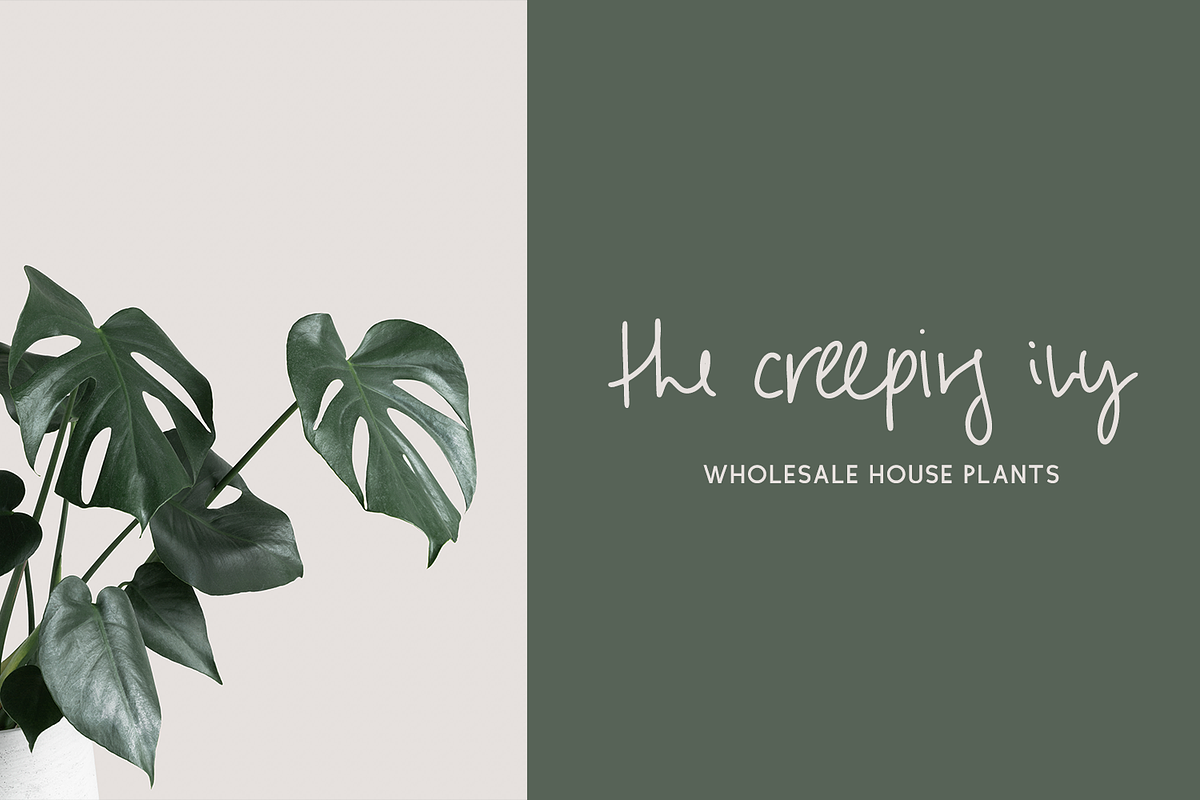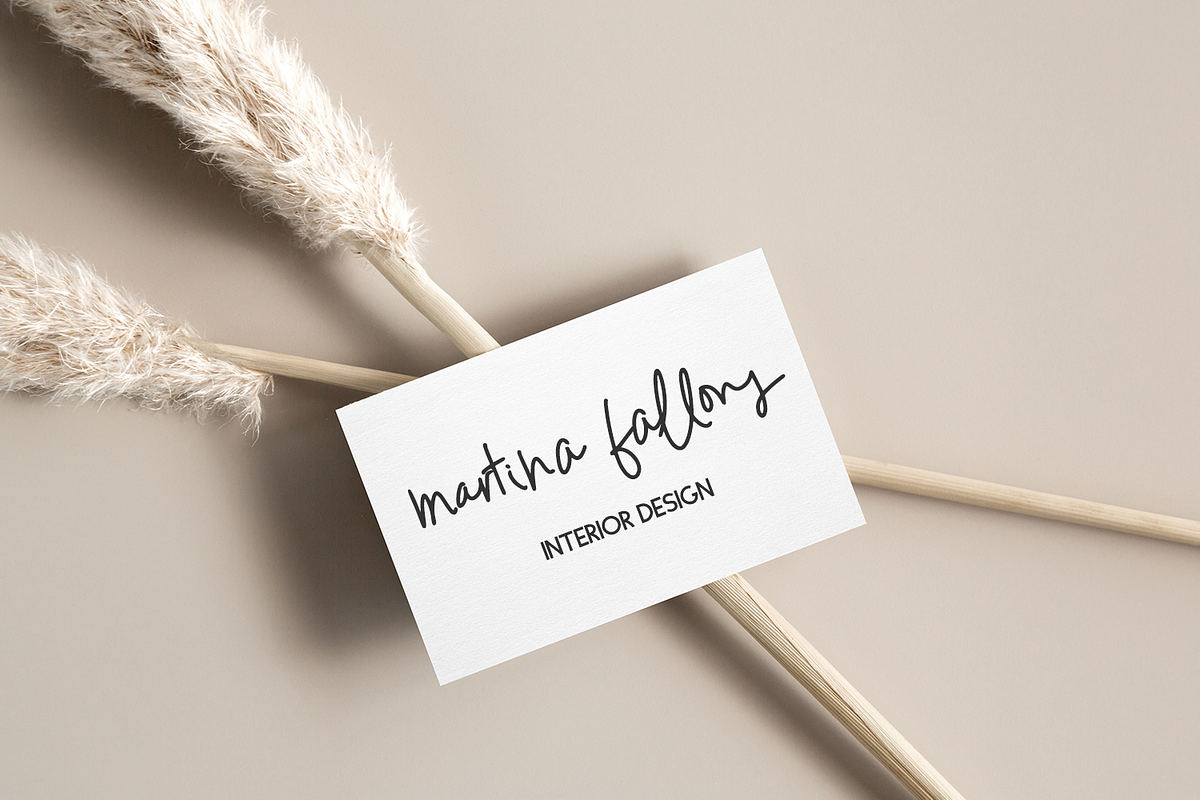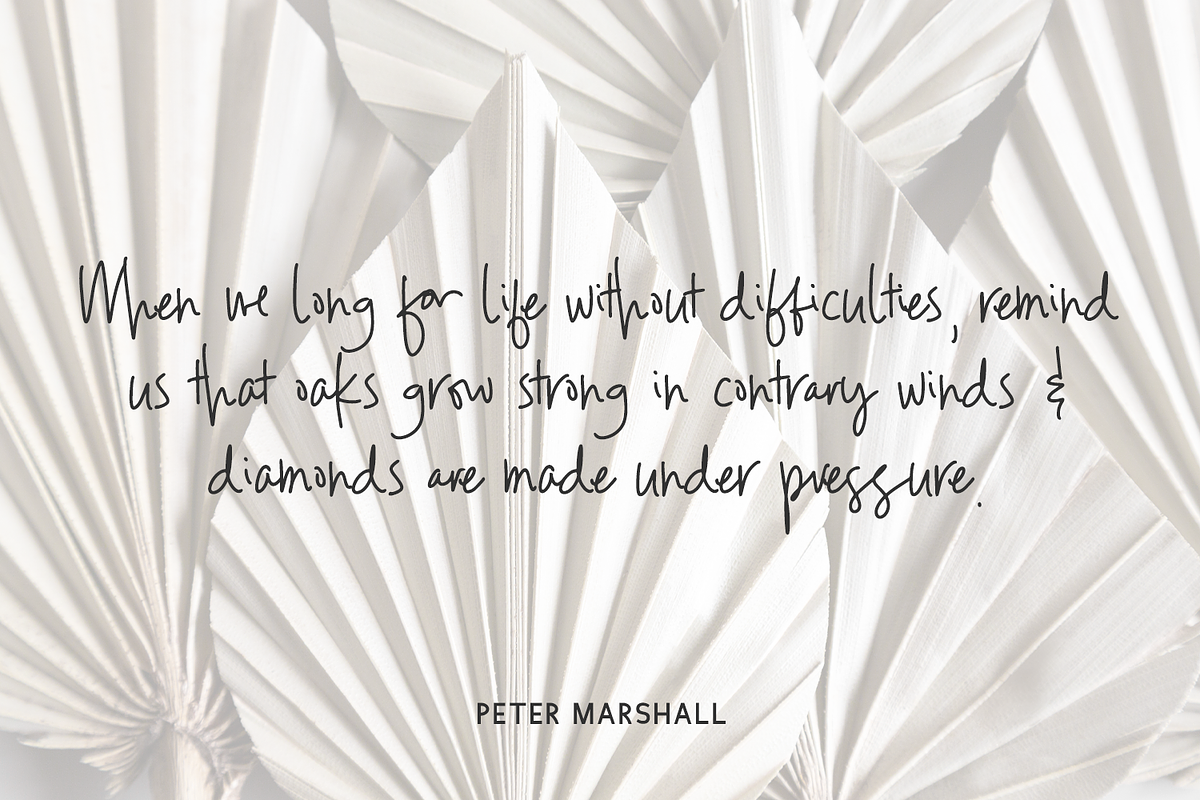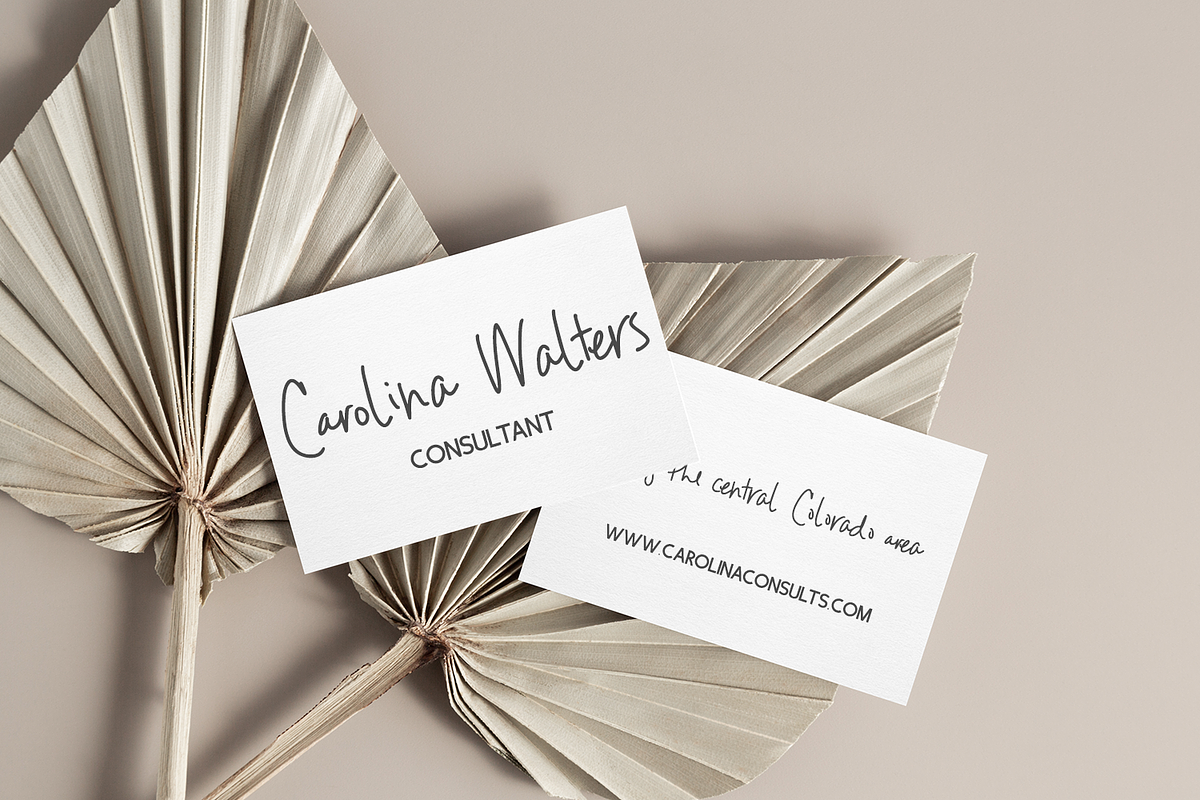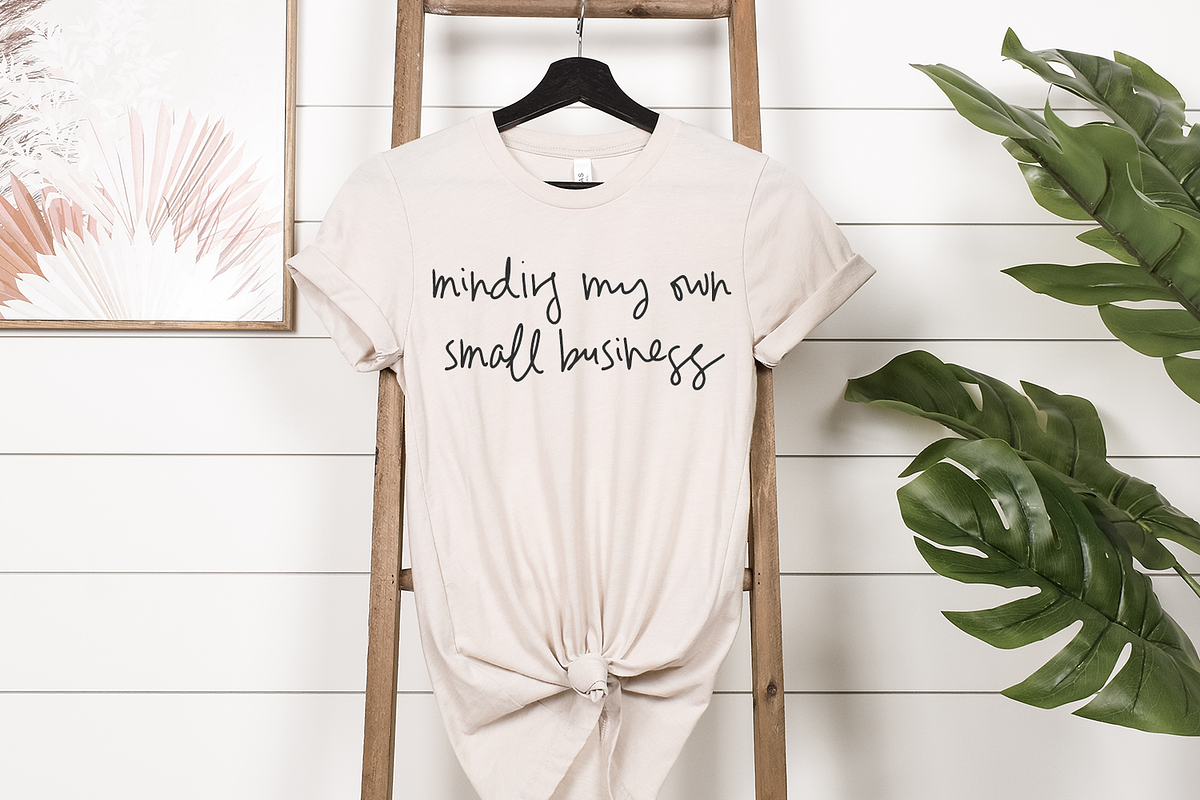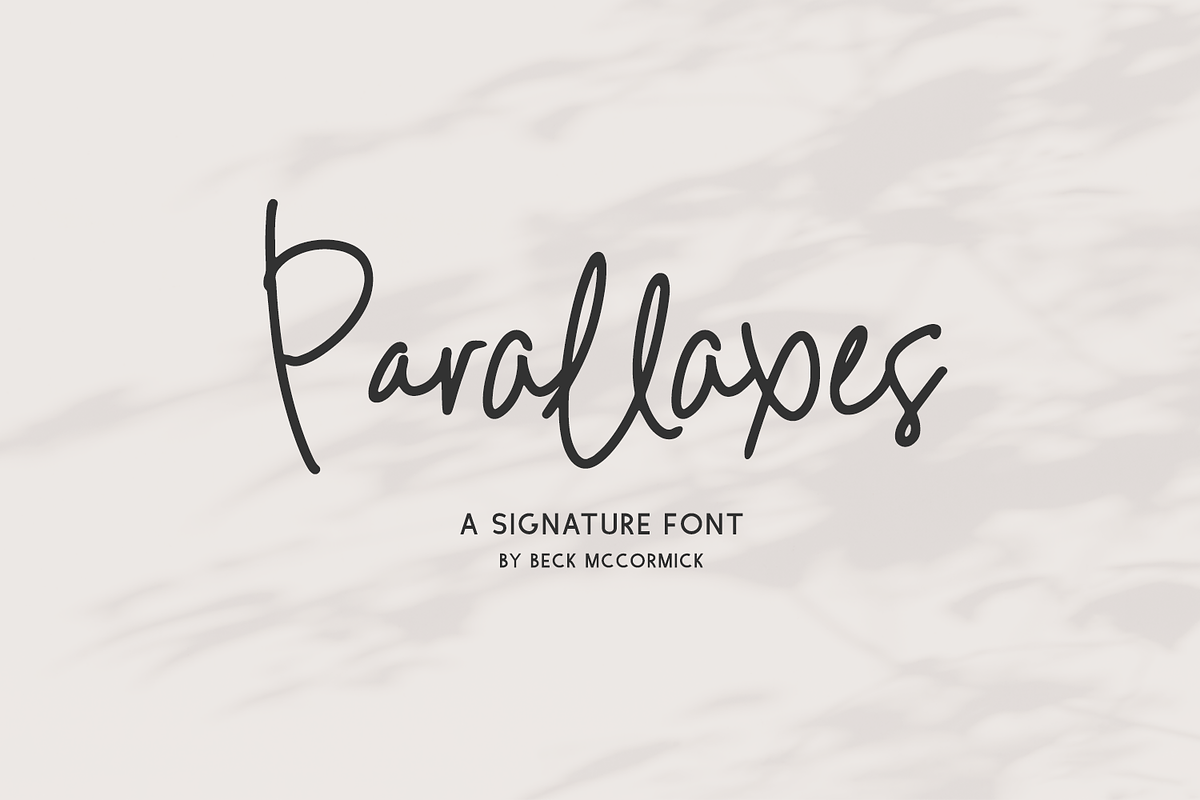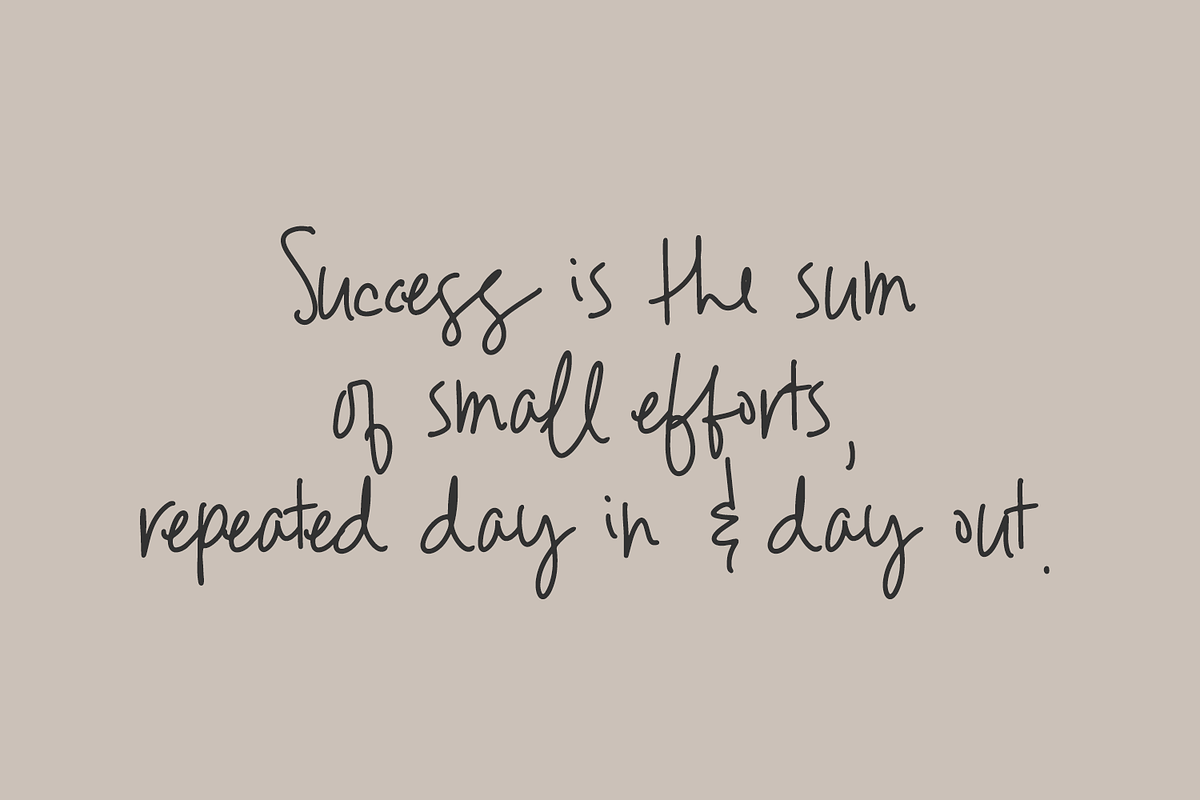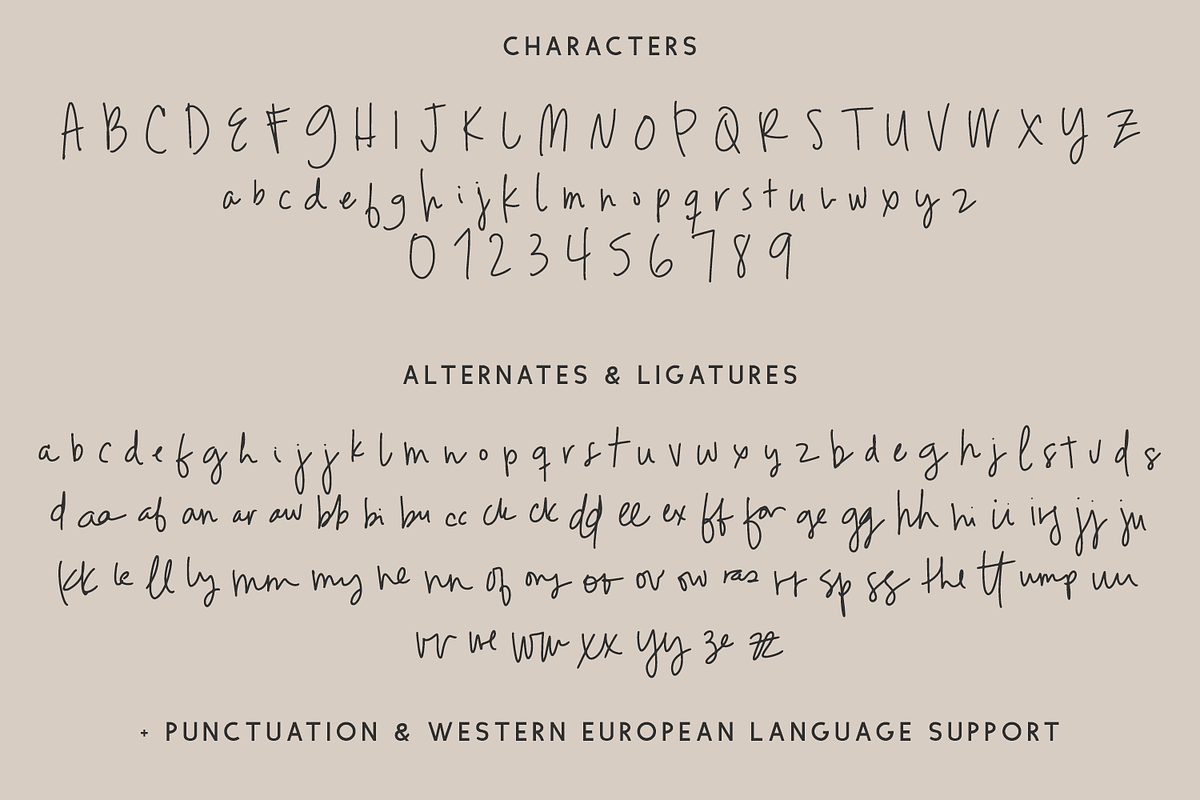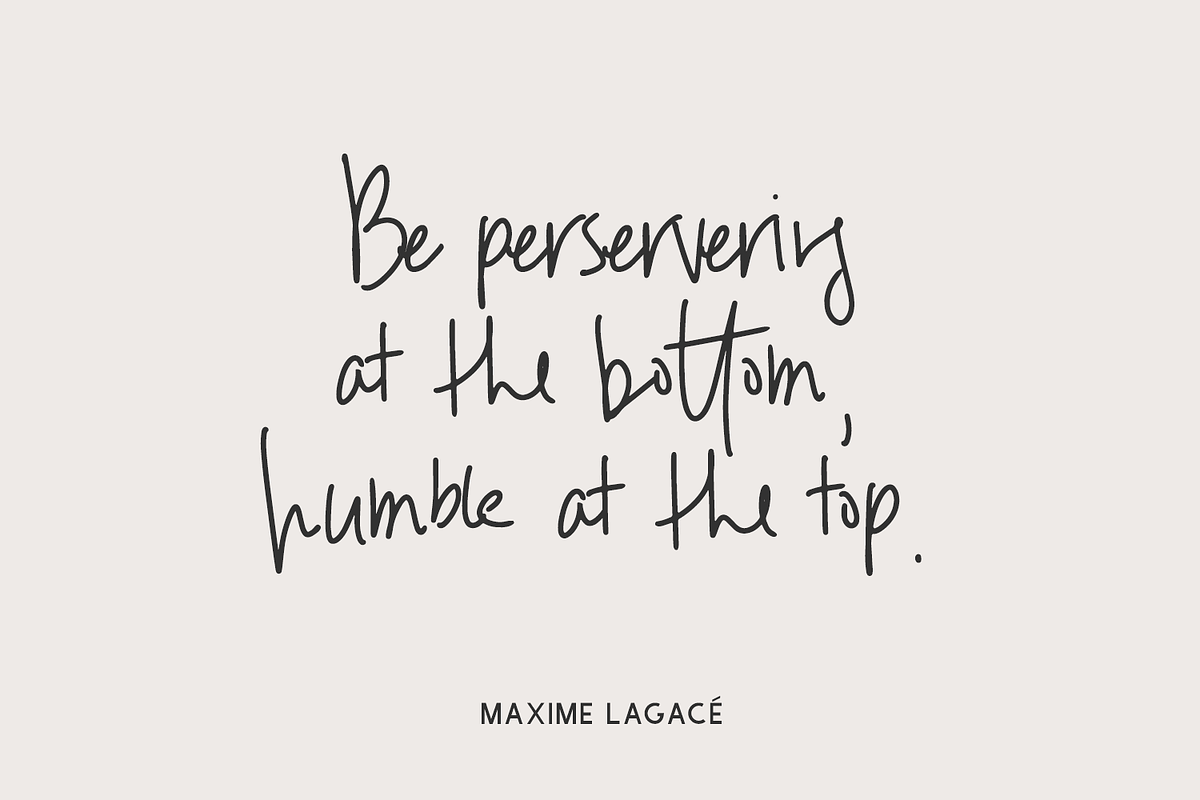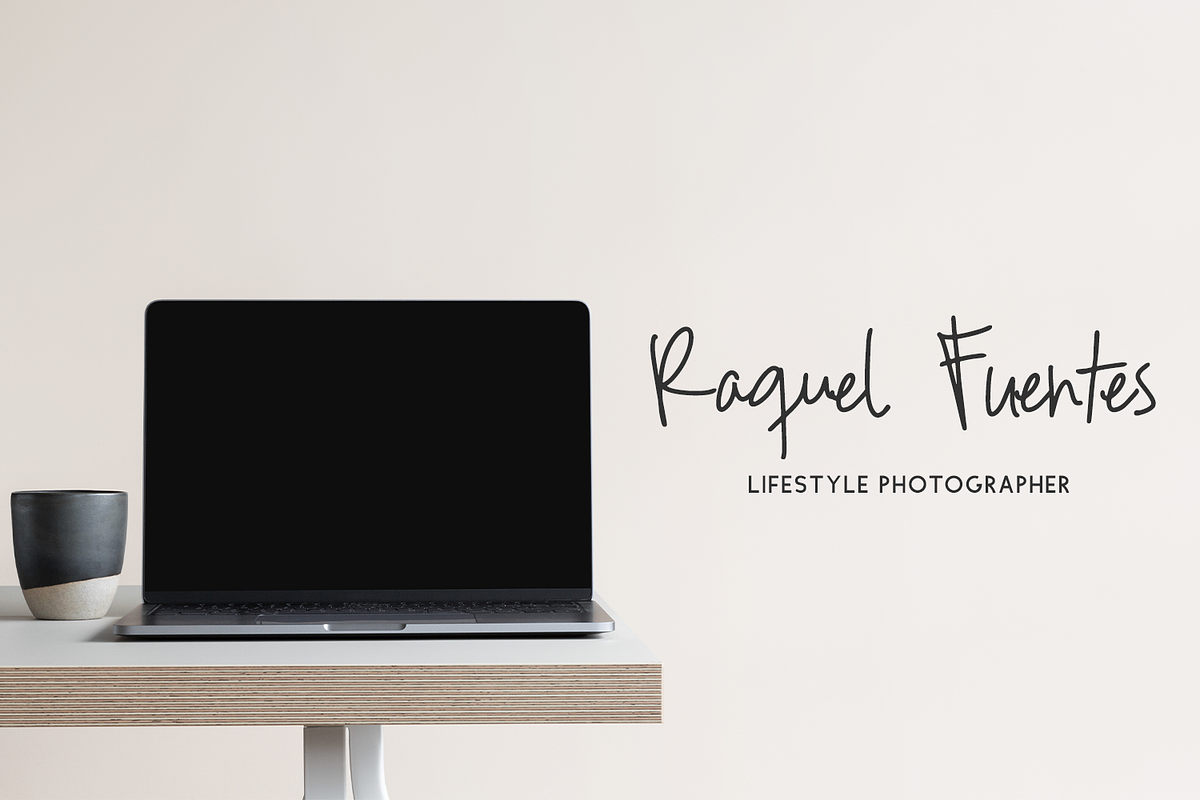
Parallaxes Script
Introducing Parallaxes, a messy handwriting font with alternates & ligatures. Parallaxes is modern and moody.
Parallaxes is best for:
- logos + branding
- digital planners & apps like Goodnotes
- website design + website accents, blog design
- clean print design, like magazines + flyers
- header elements that need handwritten touch
- quote graphics for social media
- feminine graphic tee shirt design & other apparel
Parallaxes includes:
- full upper + lowercase characters
- numbers + punctuation
- Western European Language Support
- 39 alternates
- 52 ligatures - aa, af, an, ar, aw, bb, bi, bu, cc, ck (x2), dd, ee, ex, ff, for, ge, gg, hh, hi, ii, ing, jj, ju, kk, le, ll, ly, mm, my, ne, nn, of, ons, oo, ov, ow, ras, rr, sp, ss, the, tt, ump, uu, vv, we, ww, xx, yy, ze, zz